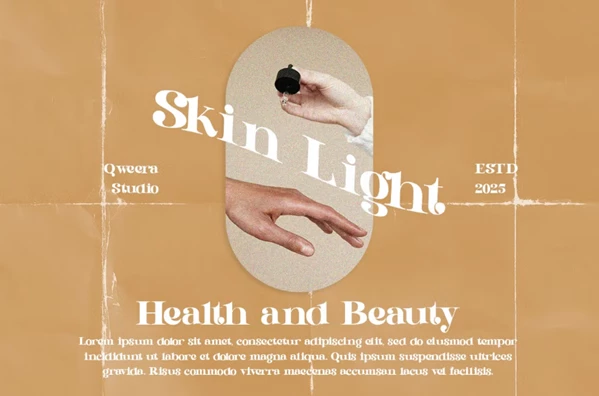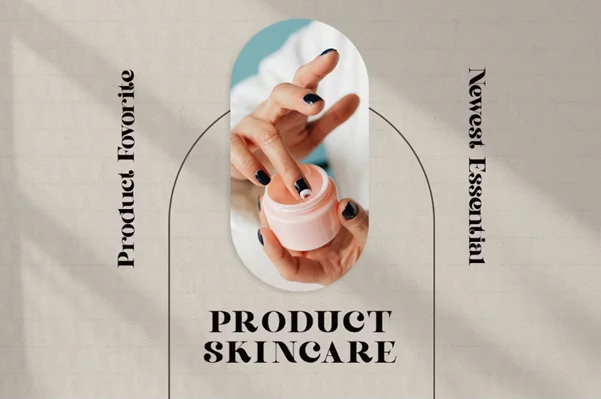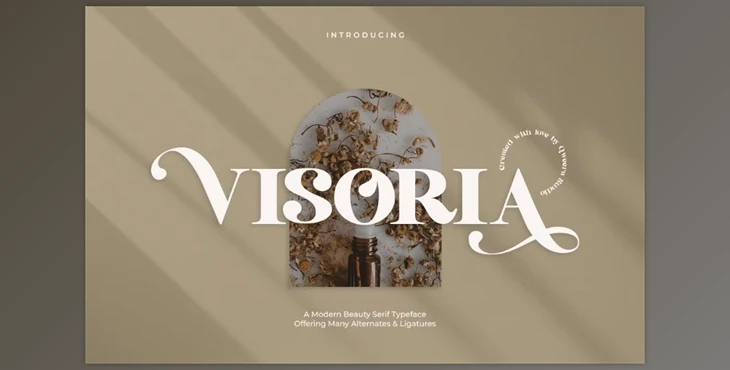
Visoria - Modern Serif Font:
Visoria is a modern sophisticated serif font that is crowned with stylish alternates and ligatures. It is versatile in design - appropriate for branding and posters to print magazines and promotional materials. It is sophisticated and extends for fresh timeless styles which means designers who need to enhance their work will appreciate it.